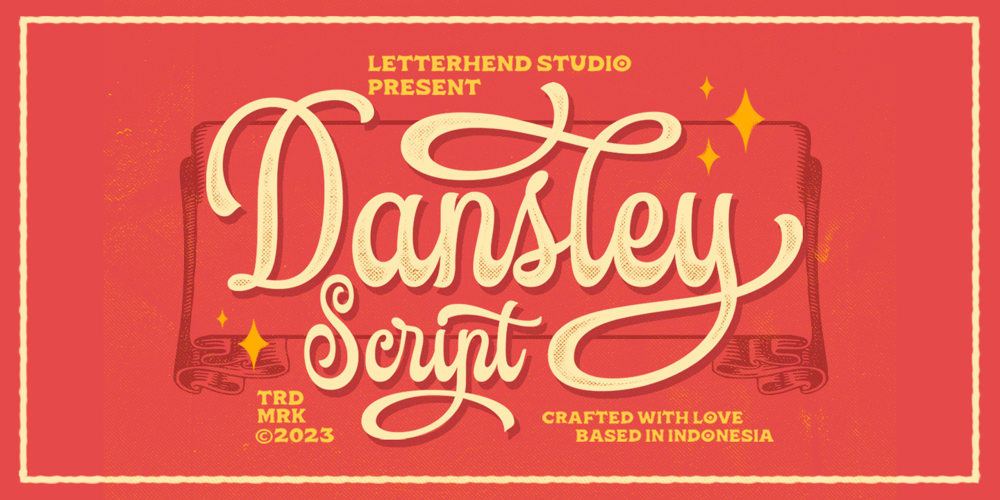
Dansley Font Family was designed by Hendry Juanda and published by Letterhend. Dansley contains 1 styles and family package options. Meet Dansley – a script font that brings together the vintage and classic looks with a unique twist. Its bold form and chic details add a touch of sophistication and personality to any design project especially in logo, and the other various formal forms such as invitations, labels, logos, magazines, books, greeting / wedding cards, packaging, fashion, make up, stationery, novels, labels or any type of advertising purpose.Features: Uppercase & lowercase Numbers and punctuation Ligatures & Alternates Multilingual PUA encoded We highly recommend using a program that supports OpenType features and Glyphs panels like many of Adobe apps and Corel Draw, so you can see and access all Glyph variations.